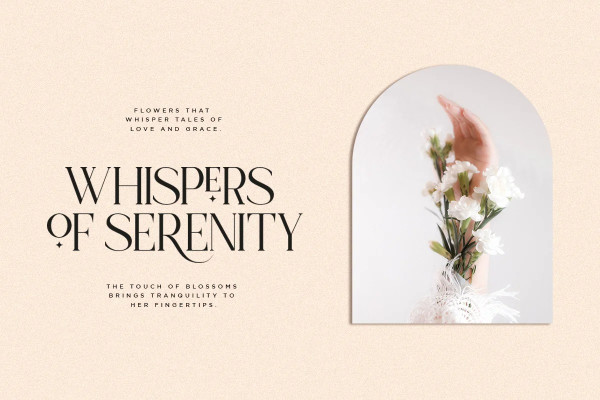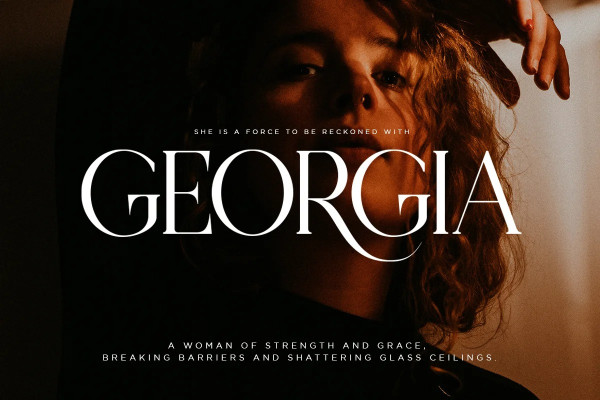
KOELA TYPEFACE
Koela Typeface Is A Modern Serif Font with Stylistic Alternates and Ligatures. This font was created for all forms of business and branding such as clothing, logos, skate boards and others according to your needs.